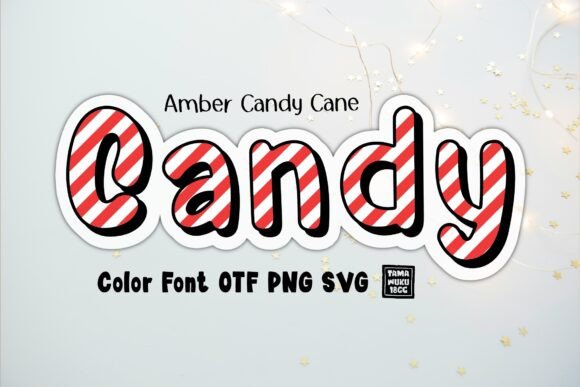
Discover the Magic of Amber Candy Cane Font
It’s the most wonderful time of the year – and I’m not just talking about the holiday treats! As a designer, I’m always on the lookout for the perfect font to bring my projects to life. I recall a particularly stressful design session last Christmas season, frantically searching for a font that captured the festive spirit. That’s when I stumbled upon the Amber Candy Cane font, and it instantly became my go-to for all things merry and bright!
A Personal Review: What I Love About Amber Candy Cane
So, what makes Amber Candy Cane font so special? Here are a few things that I absolutely adore:
- ✨ Festive theme: The font features a delightful red and white Christmas theme with a subtle shadow effect, making it perfect for holiday projects.
- ✅ Versatility: I can use it for a wide range of applications, from t-shirt designs to social media graphics, and even crafty DIY projects.
- 🎨 Color options: The font comes in both black and color versions, giving me flexibility in my design choices.
While I love Amber Candy Cane font, there are a few things to keep in mind:
The Story Behind Amber Candy Cane Font
Amber Candy Cane font was designed with the holiday season in mind. The creator wanted to capture the magic and wonder of Christmas through a unique and festive font. Inspired by traditional candy canes and snowflakes, this font is sure to bring a touch of holiday cheer to any design project.